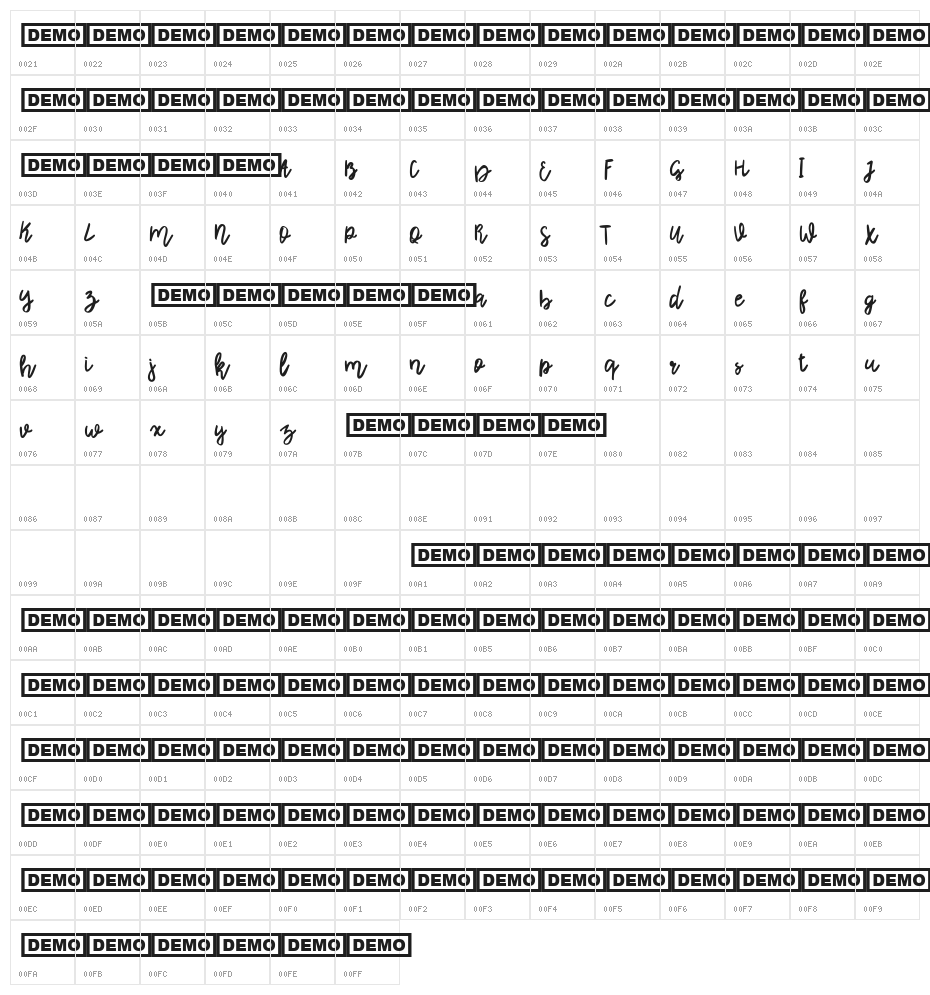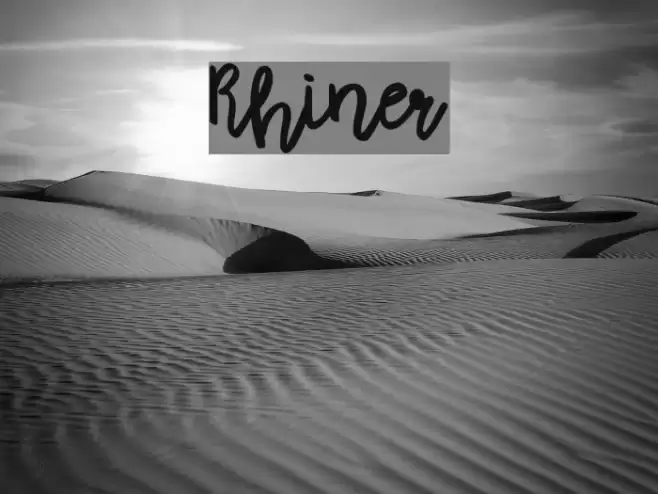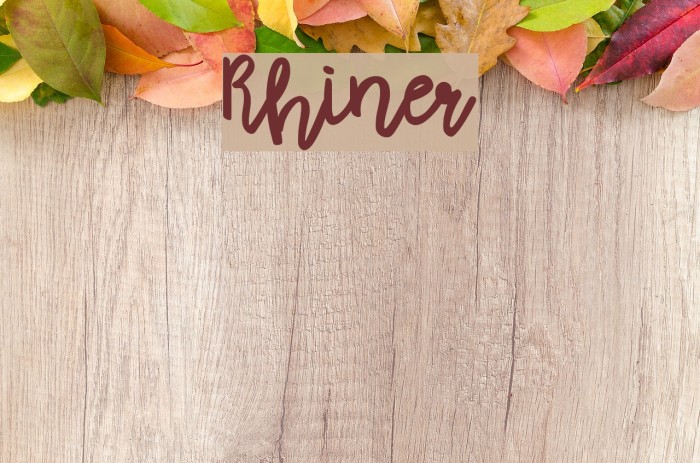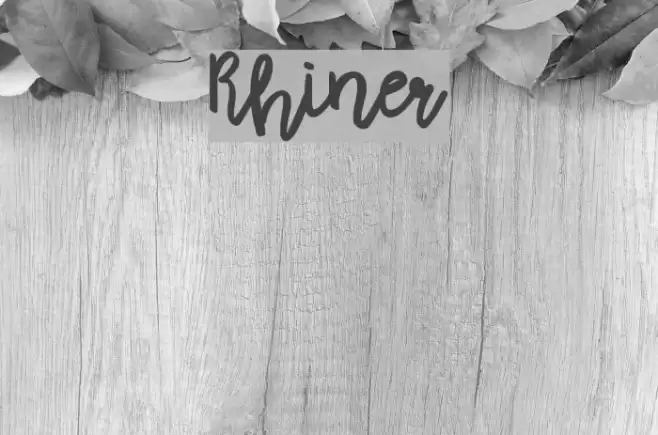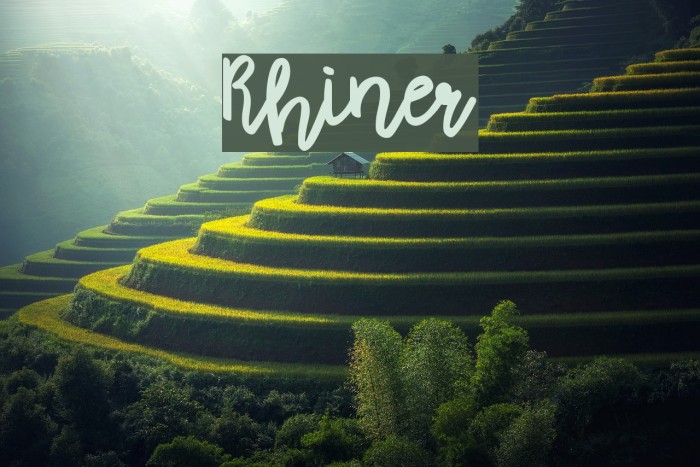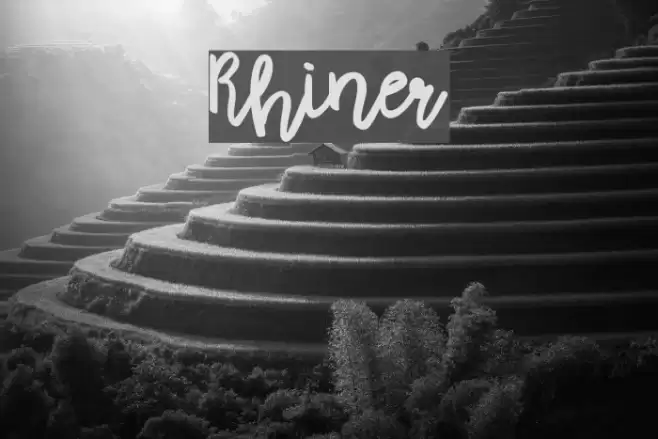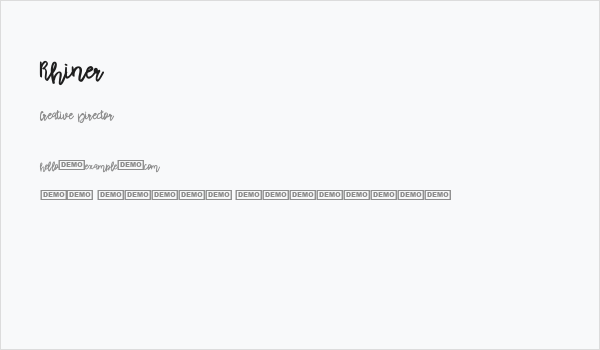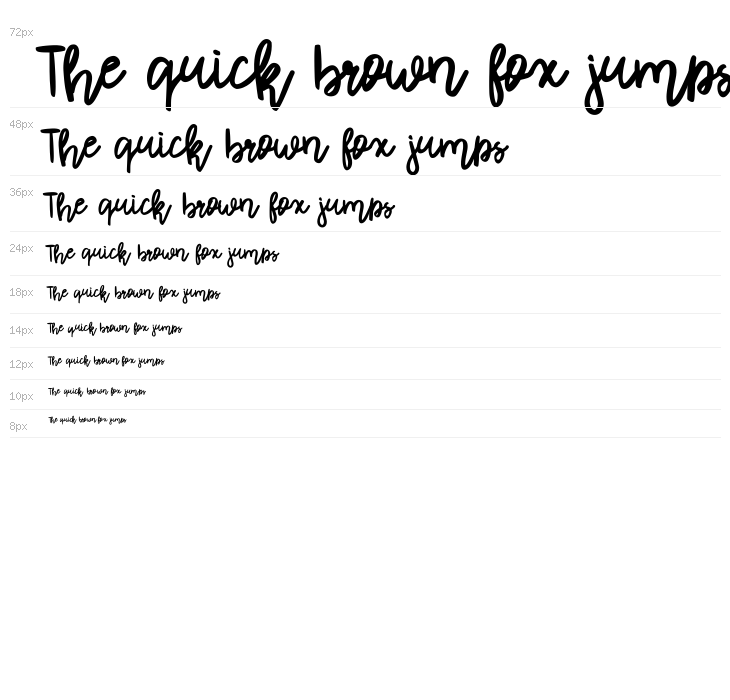
Rhiner Font
Rhiner Description
This font features a lively and expressive handwritten style, characterized by its fluid and connected letterforms. The strokes are bold and confident, with a playful yet elegant appearance. The uppercase and lowercase letters maintain a consistent flow, enhancing the overall cohesiveness of the design. The font's organic curves and loops add a sense of movement and personality, making it ideal for creative and artistic projects. Its legibility is maintained despite the decorative nature, making it versatile for various applications.